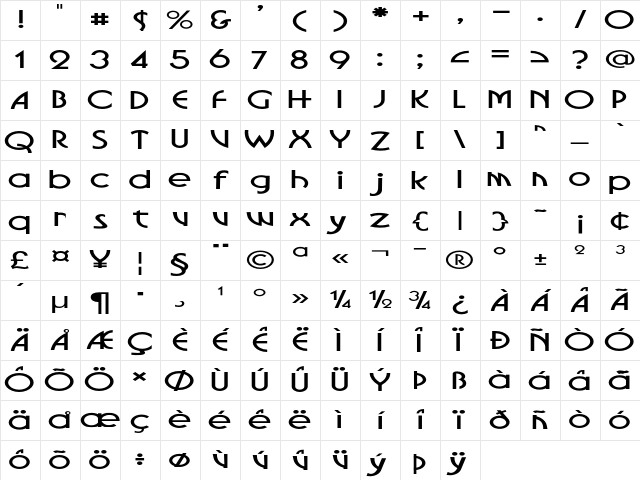
Complete Rivernia Extra-expanded Regular glyph index. Displaying only characters natively supported by Rivernia Extra-expanded Regular font.
Rivernia is a composed and adaptable typeface that performs quietly and consistently across a wide range of design contexts.